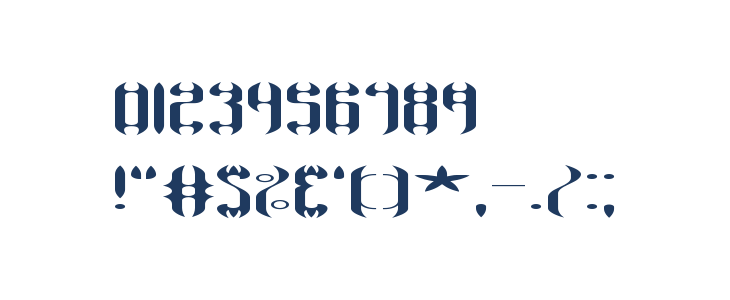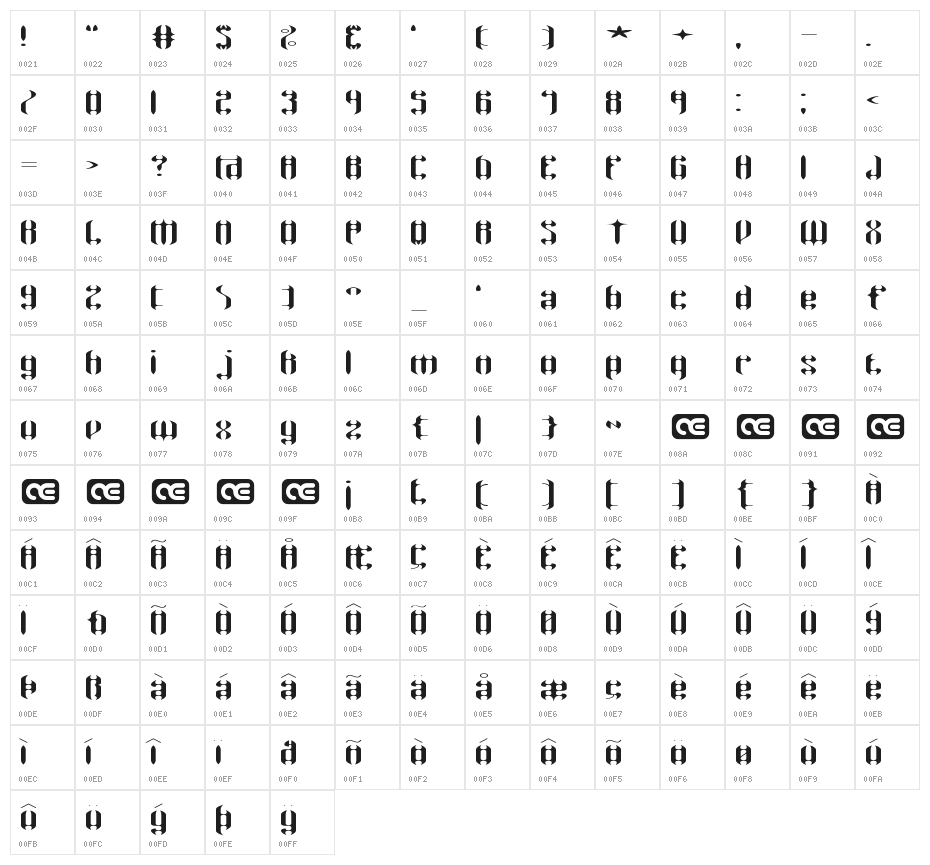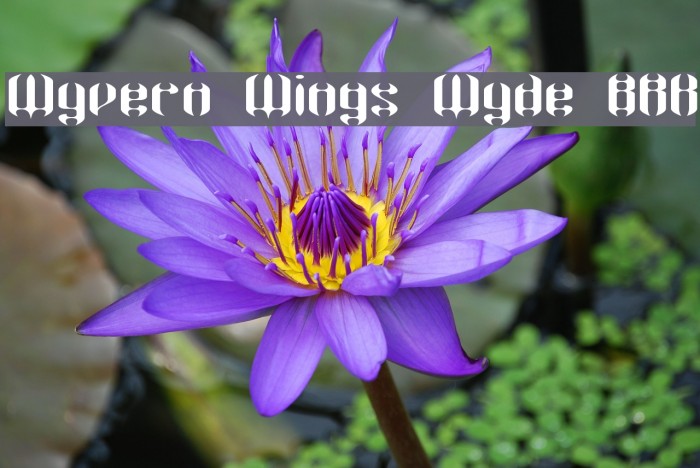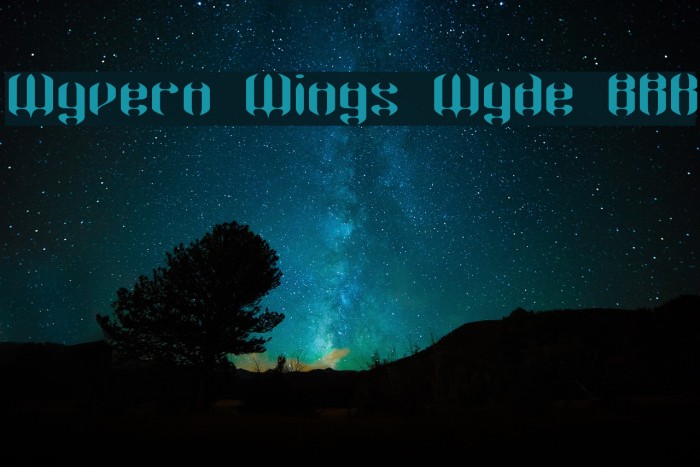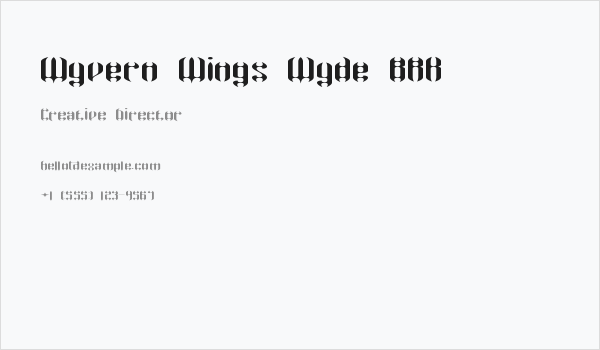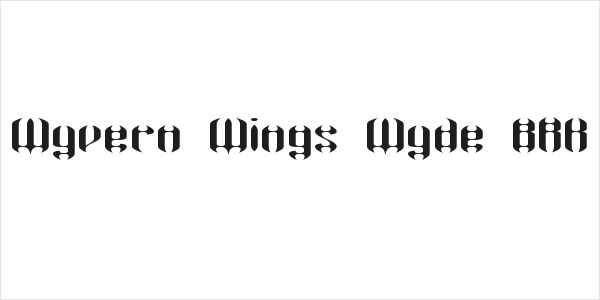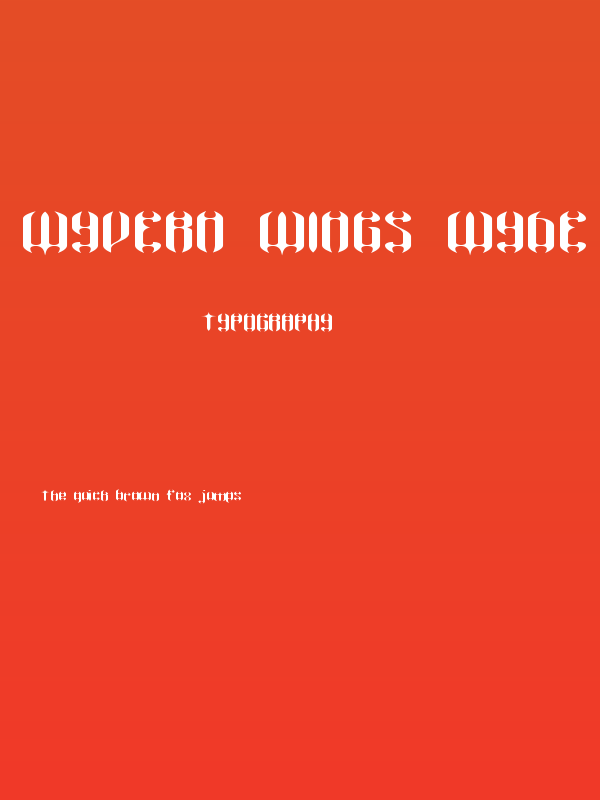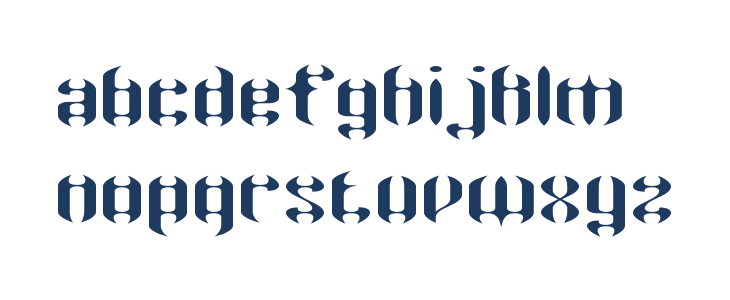
Wyvern Wings Wyde BRK Font
Wyvern Wings Wyde BRK Description
This font features a bold and decorative style with unique, wing-like extensions on each character, giving it a fantasy or gothic appearance. The uppercase and lowercase letters maintain a consistent design, with sharp, angular edges and symmetrical embellishments. The numerals and special characters follow the same stylistic approach, ensuring a cohesive look across all glyphs. The overall design is striking and highly ornamental, making it suitable for projects that require a dramatic and eye-catching typeface.
| Overall Style | Gothic, Fantasy, Decorative |
| Proposed Projects | Ideal for fantasy-themed posters, book covers, video game titles, and branding that requires a dramatic and unique typeface. |